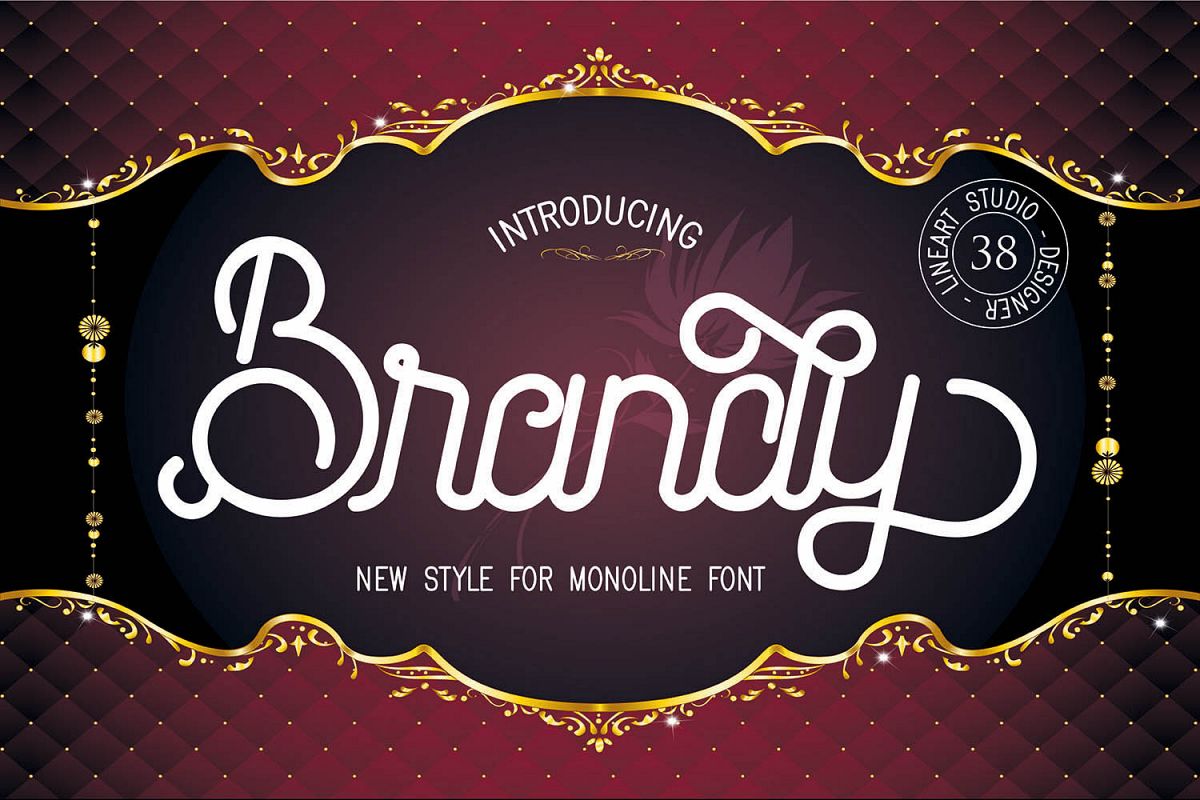
Brandy Monoline Duo
We introduced a
monoline font with a new style, we named it Brandy. The Brandy font consists of
two types, script and sheriff, and we call it a monoline duo.
Brandy Script comes
with two versions, the clean version and the natural version. Although this
font application makes an impression of ellegan and also a vintage and retro
impression. Brandy Script has lots of glyphs, main Glyphs supported 11
Stylisticset lowercase letters and 1 StailisticSet uppercase letters, both
clean and natural versions. This font is also equipped with numerald and
punchtuation, standard ligature and multilanguage.
Brandy Mono Type face is
another type, this font consists of capital letters to complete the rhythm of
your mono design.
The combination of
the two scripts and sheriffs produces an amazing design, but it is very
interesting, you can make it into loggo, web banners, craft production, quotes,
and also very good for lettering, and also accessible with shilhouete machines
and very fun.